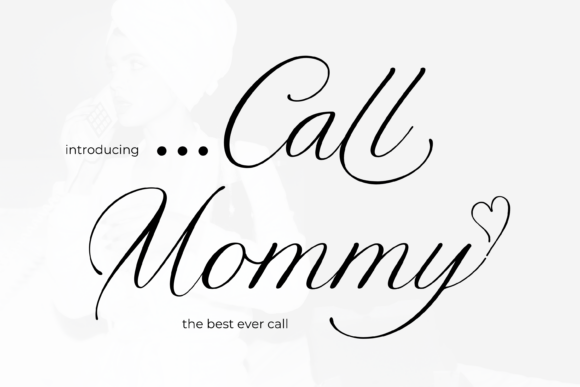
Introducing Call Mommy Font: The Epitome of Elegance and Romance
The world of typography is vast and diverse, with numerous fonts designed to evoke various emotions and aesthetics. Among these, the “Call Mommy” font stands out as a beacon of elegance and romance, perfect for those seeking to add a touch of sophistication to their projects. This article delves into the intricacies of the Call Mommy font, exploring its characteristics, uses, and the unique charm it brings to wedding and engagement themes.
What is Call Mommy Font?
βCall Mommyβ is a graceful and romantic calligraphy font, meticulously crafted to exude a refined, luxurious touch. Its design is characterized by flowing lines, elegant strokes, and a high degree of precision, making it an ideal choice for projects that demand a high level of sophistication. The font’s aesthetic is reminiscent of traditional calligraphy, yet it carries a modern appeal that aligns with contemporary design trends.
The Perfect Choice for Wedding and Engagement Themes
Weddings and engagements are occasions that celebrate love and commitment, and the choice of font can significantly enhance the thematic essence of these events. The Call Mommy font, with its upscale and elegant feel, is perfectly suited for wedding or engagement themes that aspire to convey a sense of luxury and refinement. Whether it’s for invitations, decorations, or digital communications, this font can elevate the visual appeal of your wedding or engagement project.
Why Choose Call Mommy for Your Wedding or Engagement?
- Elegant Aesthetic: The Call Mommy font boasts an elegant design that can add a touch of sophistication to any wedding or engagement theme.
- Versatility: Its versatile nature allows it to be used across various mediums, from printed materials like invitations and menus to digital platforms such as wedding websites and social media announcements.
- Emotional Connection: The romantic and graceful feel of the font can evoke a deeper emotional connection, making your wedding or engagement communications more heartfelt and memorable.
Design and Typography of Call Mommy Font
The design of the Call Mommy font is a testament to meticulous craftsmanship. Each letter is carefully designed to flow seamlessly into the next, creating a harmonious and visually appealing text. The typography is characterized by:
- Flowing Lines: The font features flowing lines that contribute to its elegant and romantic appeal.
- Refined Strokes: Each stroke is refined and precise, adding to the font’s luxurious feel.
- Classic yet Modern: While the font draws inspiration from traditional calligraphy, it incorporates modern elements to make it relevant and versatile.
Tips for Using Call Mommy Font Effectively
To maximize the impact of the Call Mommy font in your projects, consider the following tips:
- Pair with Complementary Fonts: For optimal results, pair the Call Mommy font with simpler, complementary fonts to ensure readability and visual balance.
- Choose Appropriate Colors: Select colors that match the theme of your wedding or engagement. Soft pastels, whites, and golds can enhance the font’s luxurious feel.
- Consider the Medium: Adapt the font size and style according to the medium. For instance, larger sizes may be more suitable for headings and titles, while smaller sizes can be used for body text.
The Call Mommy Font in the Digital Age
In today’s digital age, the use of elegant and versatile fonts like Call Mommy extends beyond traditional printed materials. Digital platforms offer a wide range of opportunities to utilize this font, including:
- Wedding Websites: Use the Call Mommy font on your wedding website to maintain a consistent aesthetic across all your wedding communications.
- Social Media Announcements: Add a touch of elegance to your social media announcements and wedding invitations.
- Digital Invitations: Digital invitations are becoming increasingly popular, and a font like Call Mommy can make them stand out.
The Call Mommy font is a beautiful and elegant addition to any wedding or engagement theme. Its refined, luxurious touch and romantic calligraphy make it the perfect choice for couples looking to add a touch of sophistication to their special day. With its versatility and timeless appeal, the Call Mommy font is sure to leave a lasting impression on your loved ones.